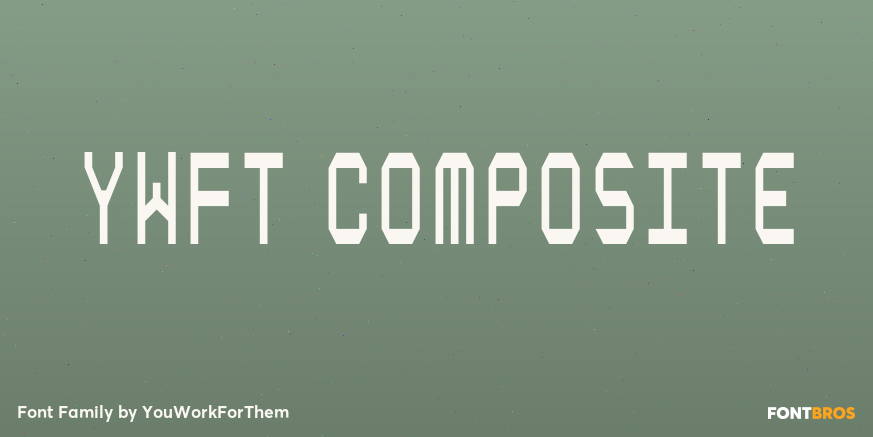
YWFT Composite
About YWFT Composite
YWFT Composite is a bitmap-/digital-style design, inspired by the collecting machine-generated printouts that are constantly encountered during press checks. Unlike most digital/robotic alphabets, YWFT Composite possesses the unique and sought-after quality…